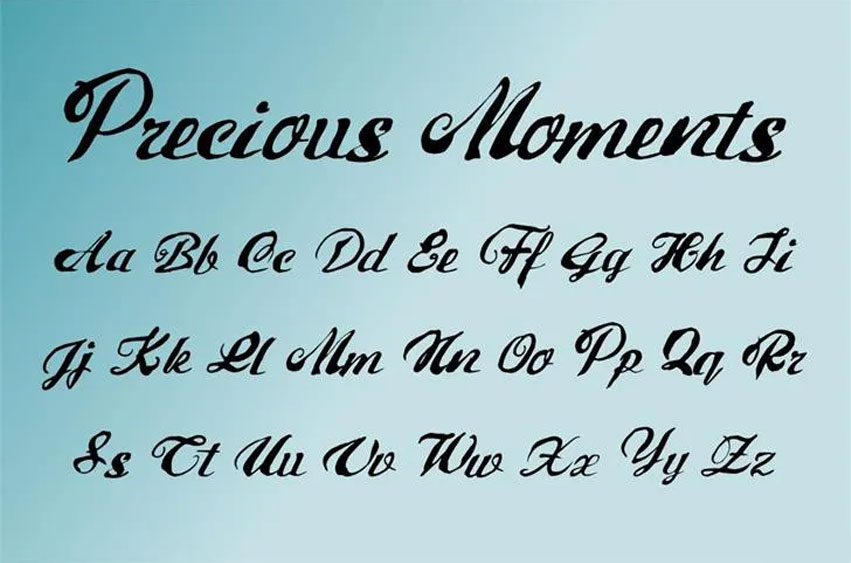
Precious Moments Font
Precious Moments Font is a professional handwritten font that is created by Xerographer Fonts and can be downloaded and used for personal purposes.
The free version only offers all the alphabets in both capital and small letters, as well as, a few symbols.